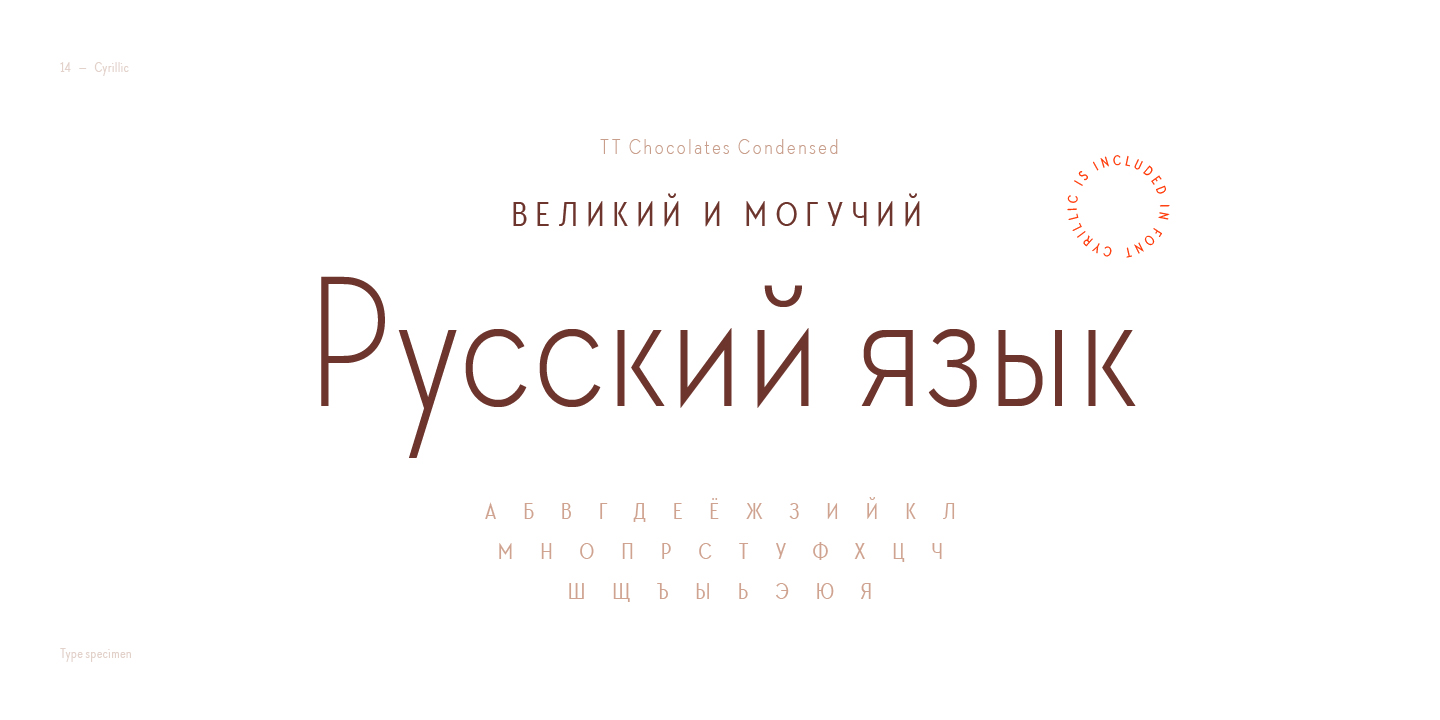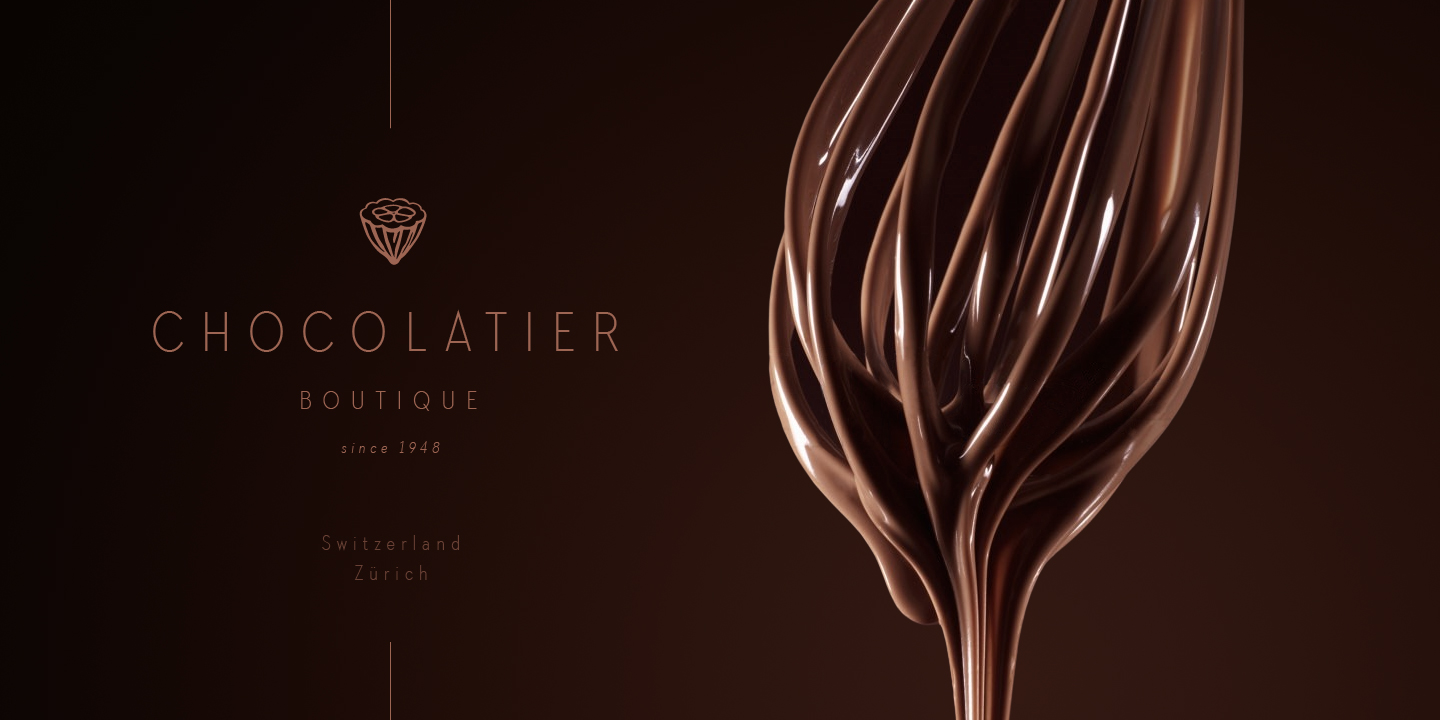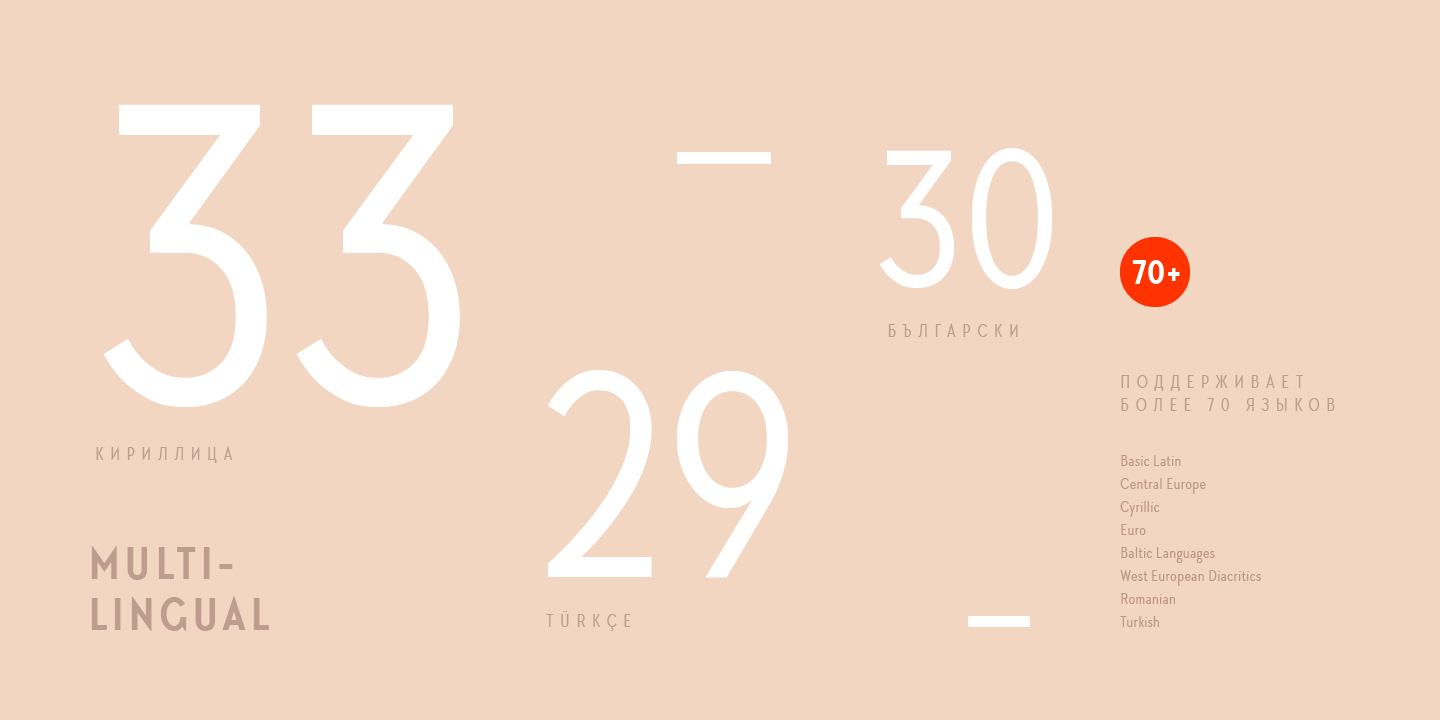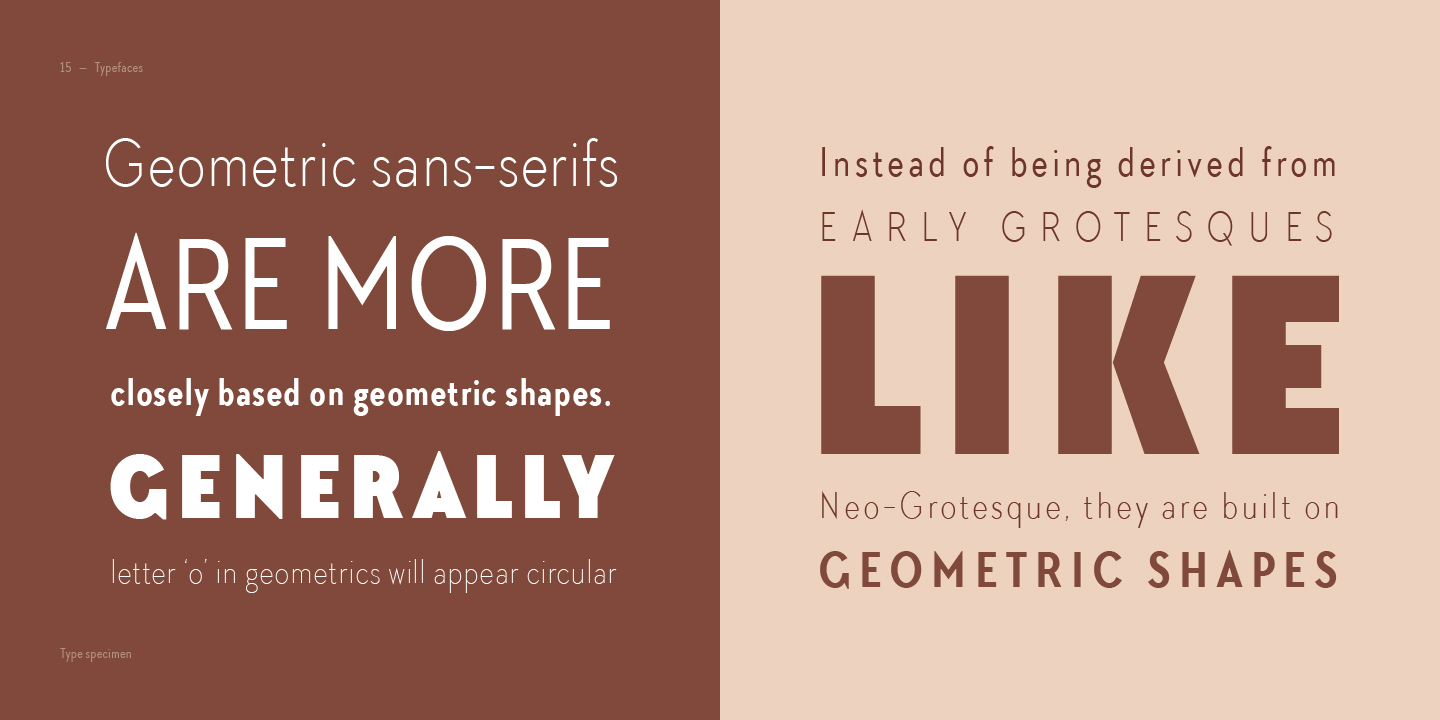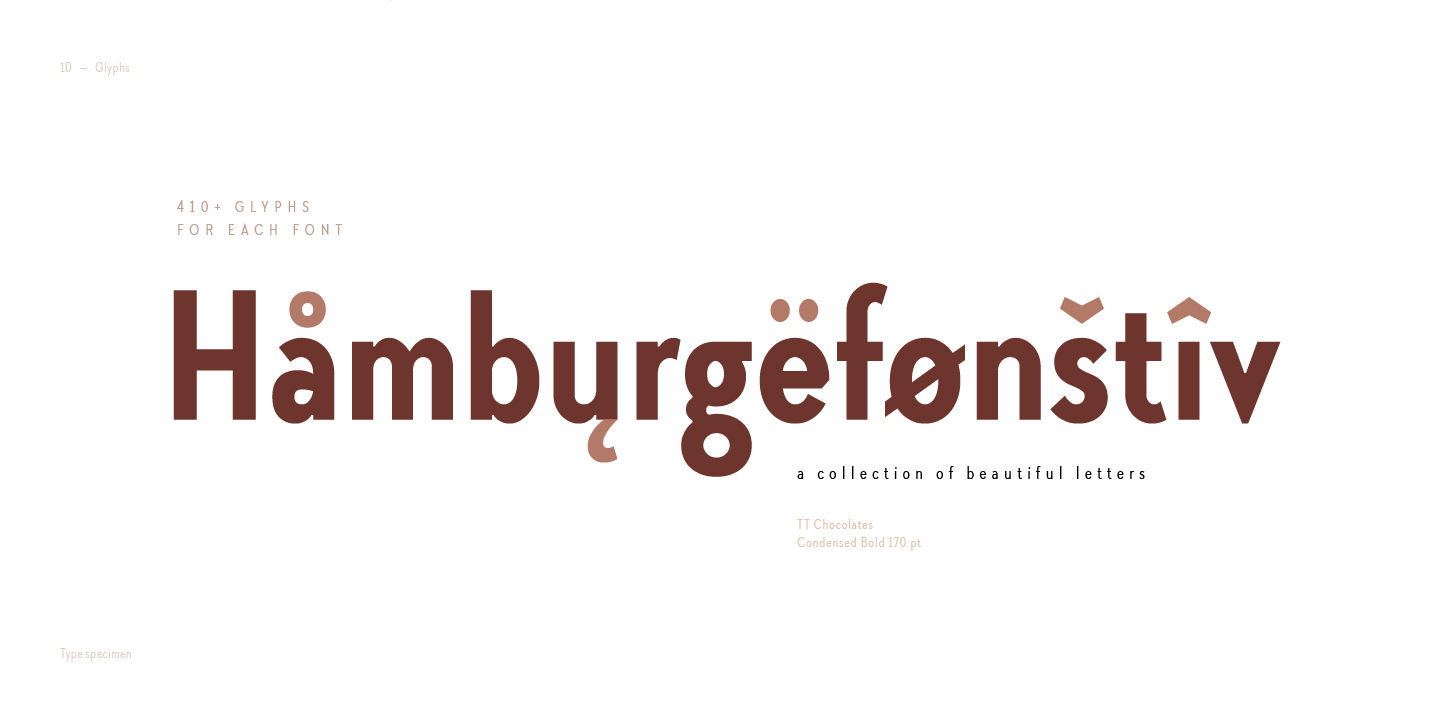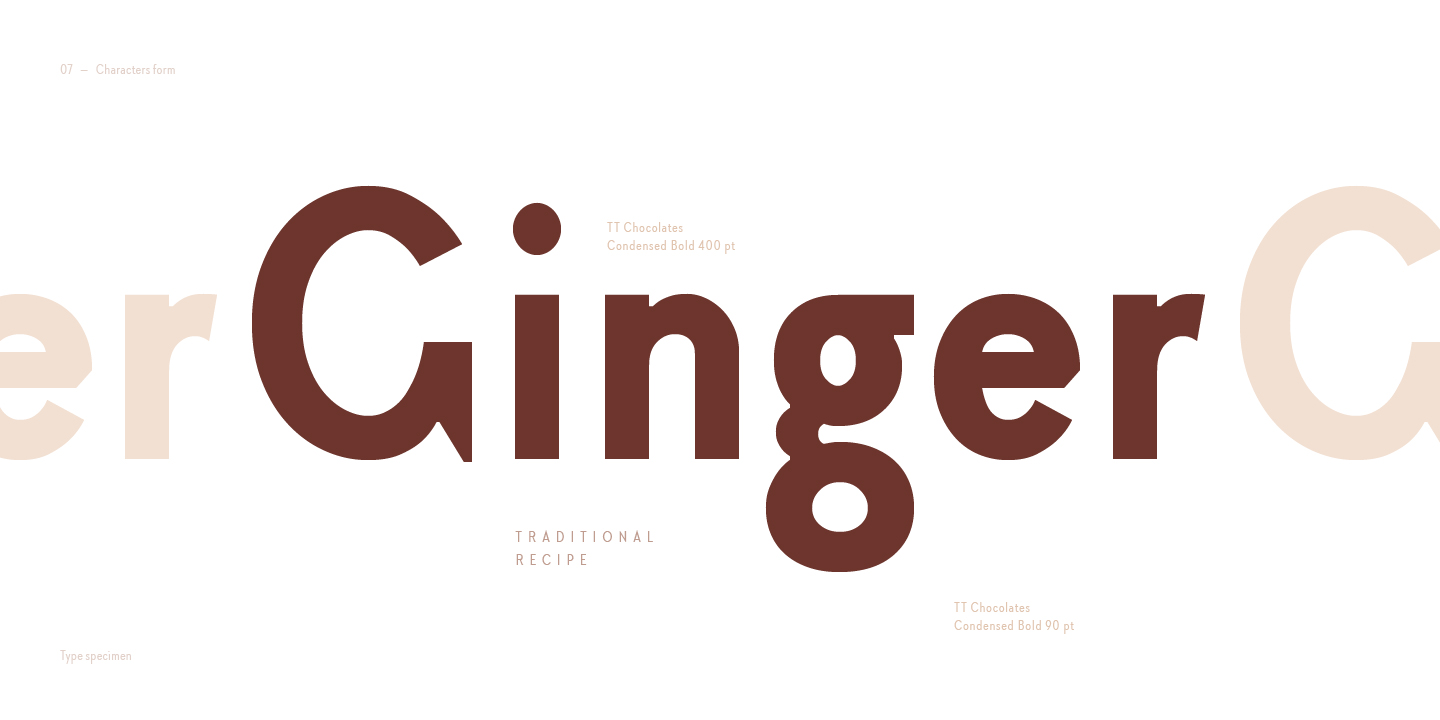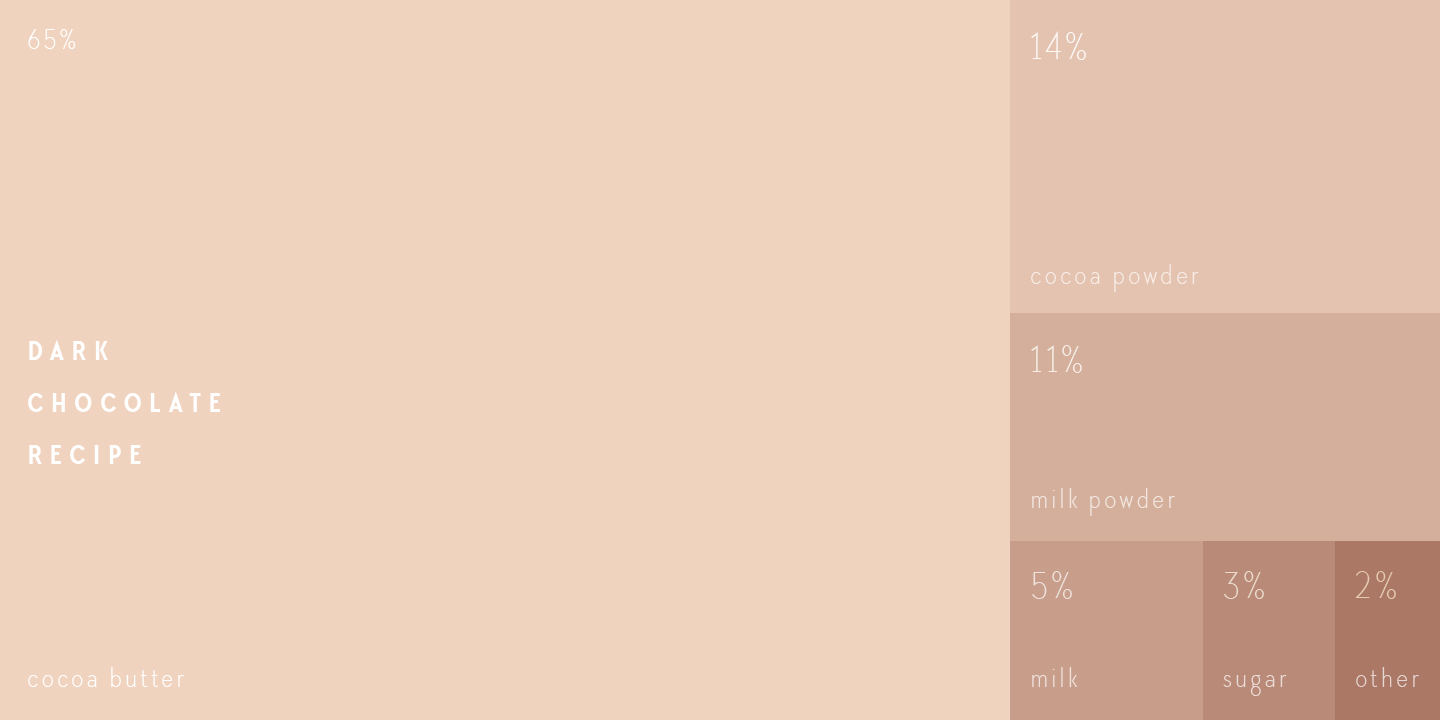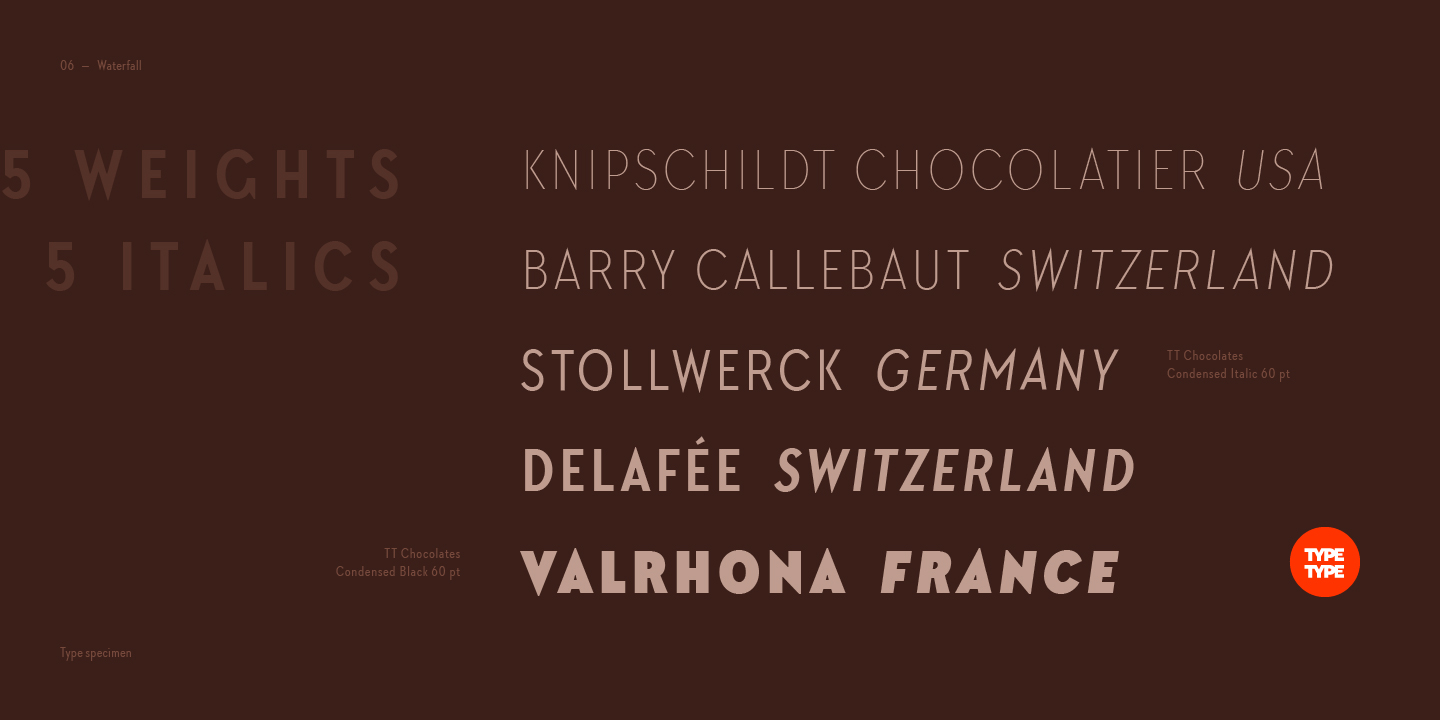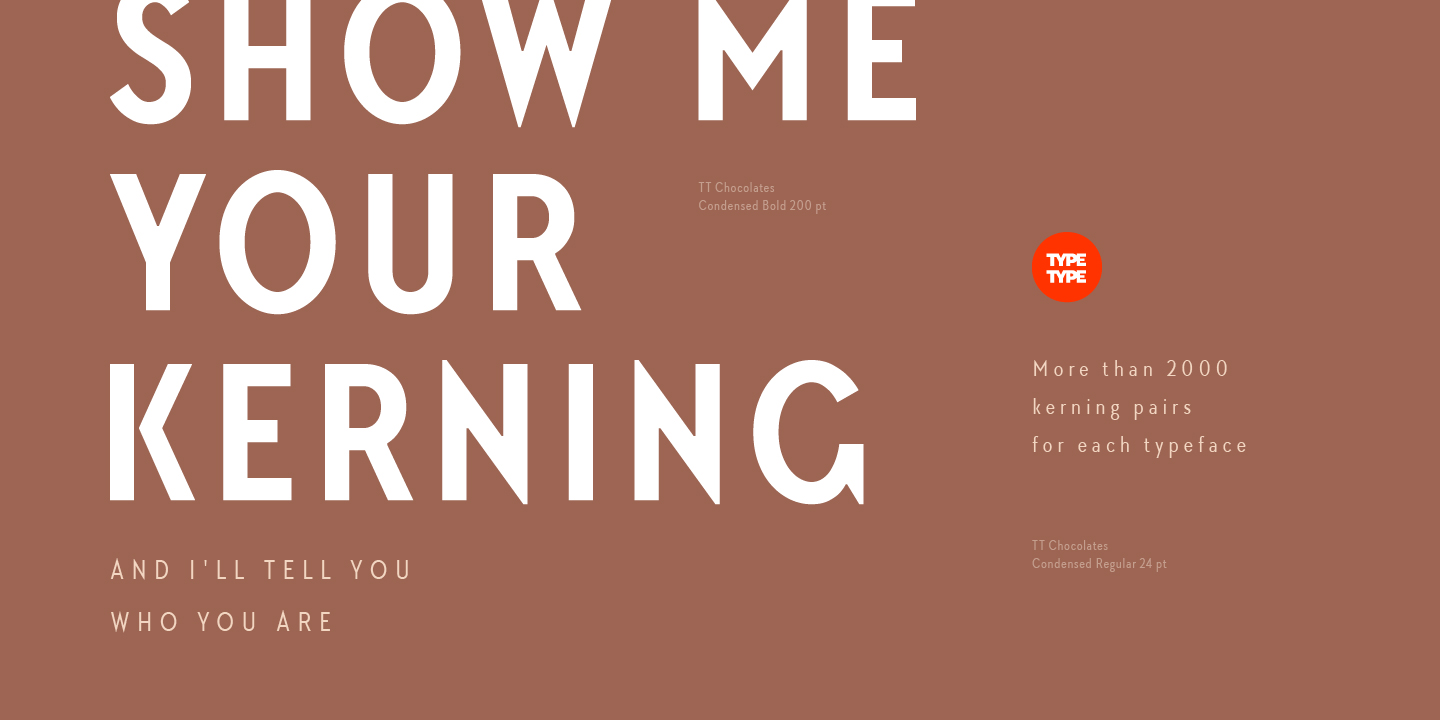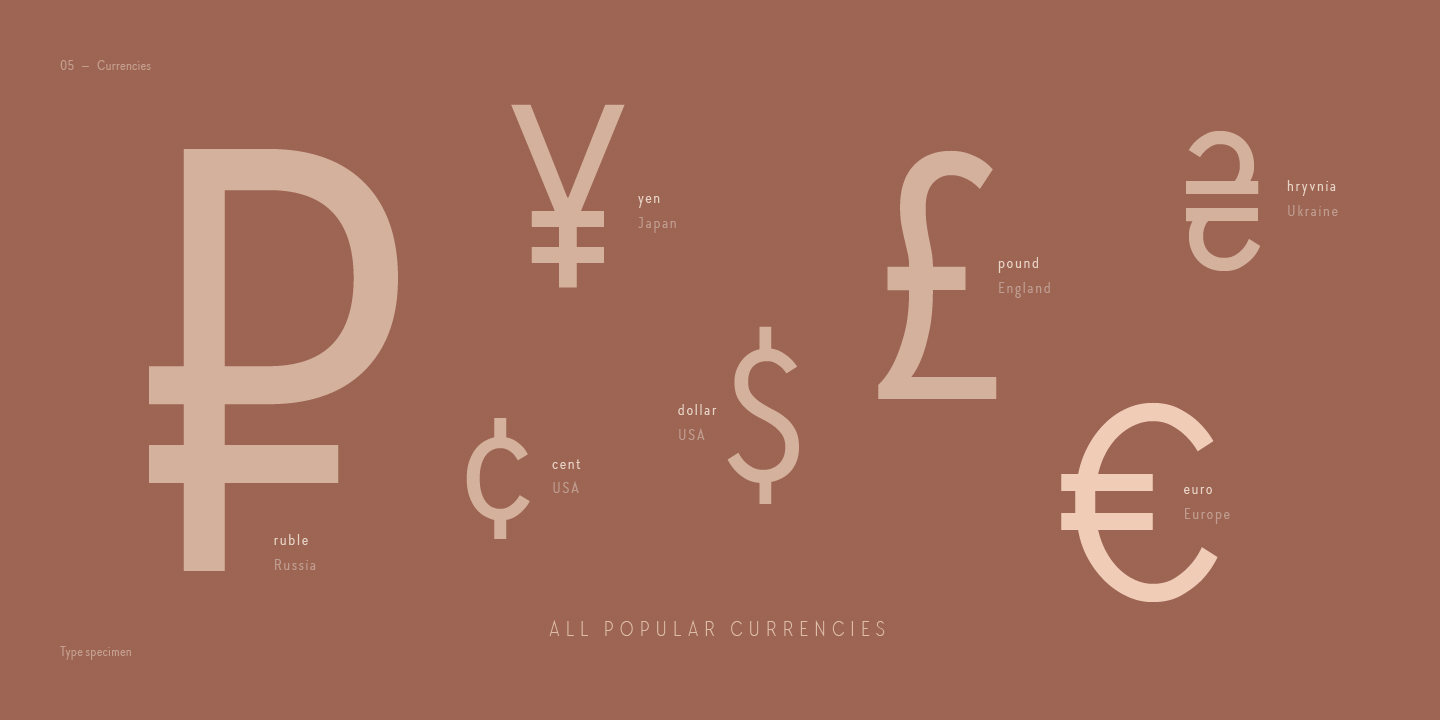
TT Chocolates Condensed Family (10 fonts)
TT Chocolates Condensed is an elegant geometric sans-serif which can be used as the main ingredient of your design, or you can add it as a tasty accent. We offer you the formula that has become TypeType’s classic, a set consisting of 10 typefaces (Thin, Light, Regular, Bold, Black & Italics), and perfect optimization of the fontfamily. TT Chocolates Condensed can be freely used for web-sites, mobile applications and any printed materials.